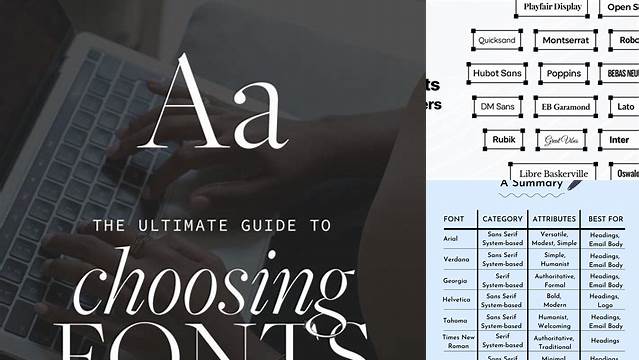
Best Web Fonts For Email: Ultimate Guide
Hey everyone! Let's dive into the best web fonts for email! Choosing the right fonts can seriously elevate your email design, making your messages more readable, engaging, and on-brand. But with so many options out there, how do you choose the perfect ones? Don't worry, I've got you covered. In this article, we'll explore some top-notch web fonts that are guaranteed to make your emails pop. We'll talk about why fonts matter, which ones work best, and how to implement them like a pro. Get ready to transform your email game! This is your go-to guide for selecting fonts that will make your emails not only look great but also perform better. So, are you ready to step up your email marketing? Let's get started.
Why Font Selection Matters in Email Marketing
Alright, guys, let's talk about the impact of font selection in email marketing. Seriously, it's a big deal. Think of your email as a virtual handshake – you want to make a good first impression, right? Fonts are a crucial part of that. The right font enhances readability, reinforces your brand identity, and grabs your audience's attention. The wrong font? Well, it can make your email look clunky, hard to read, and even unprofessional. And we definitely don't want that. When we talk about the best web fonts for email, we're talking about fonts that strike the right balance between aesthetics and functionality. Choosing the right typography helps you communicate your message effectively, which is ultimately what every email marketer strives for. You need to choose a font that complements your content and is easy to read on any device. Remember, a well-chosen font can significantly improve user experience, making your emails more enjoyable to read and increasing the likelihood that your audience will engage with your content. Plus, using the right font builds brand recognition, making your emails instantly recognizable and memorable. A good font helps build trust, which is a key factor in getting your audience to interact with your business.
Beyond just making your emails look pretty, fonts also play a huge role in readability. If your text is difficult to read, people will bounce. No one wants to squint or struggle through a block of text. So, when considering best web fonts for email, always prioritize readability, especially on mobile devices. And let's face it, most people check their emails on their phones. Choosing fonts that render well on different screen sizes and resolutions is essential. Another vital point is branding. Your font choice should align with your brand's overall aesthetic. If you have a playful brand, you might opt for a more whimsical font. For a more professional image, go for a clean, classic option. Consistency across all your marketing channels – including your emails – reinforces your brand identity and helps create a cohesive brand experience. Your email fonts are a tool that allows you to be uniquely you. It helps people to recognize you through that unique brand image. This helps build a better and stronger relationship with your readers. In short, font selection can make or break your email marketing efforts. A well-thought-out font strategy can boost engagement, improve your brand image, and ultimately drive conversions. The best web fonts for email are ones that boost your chances of a successful marketing campaign, so, let's get those numbers up!
Top Web Fonts to Consider for Your Email Campaigns
Okay, so what are some of the best web fonts for email? Let's look at a few of my favorites. There are so many options out there. I tried to make it simpler by providing some specific examples. We'll break down each one, focusing on their characteristics, and when to use them. This will help you find the perfect fit for your brand. Here are a few of my personal favs and they're often considered some of the best web fonts for email available. Remember, the key is to choose fonts that are legible and render well across all email clients and devices.
1. Arial
Starting with the basics, Arial is a classic. It's a sans-serif font, which means it doesn't have those little strokes at the ends of the letters. Arial is widely supported by email clients, making it a reliable choice, and it's a safe bet if you want to ensure your emails look consistent across different platforms. It's very readable, even at smaller sizes, so it's a great option if you want your emails to be accessible on all devices. It's very well known and has been widely used. While Arial might not be the most exciting choice, it's dependable. It is usually used as a default. It is a workhorse that gets the job done, and it's perfect for body text. This makes it ideal for long-form content that needs to be easy to read. Because of its simple design, Arial blends well with other fonts. This allows you to use it with other fonts to make your emails more appealing. Arial is universally recognized and understood, so it will likely work as expected for anyone on any device.
2. Helvetica
Next up, we have Helvetica. Similar to Arial, Helvetica is a sans-serif font with clean lines and high readability. It's another safe choice, as it's widely supported. Its minimalist design gives your emails a modern and clean look. Helvetica is known for its versatility, making it suitable for different types of content. If you are in doubt, you can't go wrong with Helvetica. It's an excellent choice for both headlines and body text, providing a consistent and polished look. It is also a popular choice among many other major brands. It is considered more of a premium option than Arial. Although, they are very similar to each other. Helvetica is ideal for brands that want to convey a sense of professionalism and simplicity. It is very easy to read on any device. Helvetica gives a very classic impression of the brand, which is very important to a lot of companies. This can help readers know more about your company's values.
3. Verdana
Moving on, we have Verdana. This is another excellent choice for email. Verdana is also a sans-serif font, but it's designed specifically for readability on screens. It has wider letterforms and a larger x-height. This means that the lowercase letters are taller, which makes it easier to read, especially at smaller sizes. This is particularly useful for emails that are viewed on mobile devices. Verdana is another font that is well-supported by email clients and ensures your message is clear and concise. It is perfect for body text. It is great to use when you want to ensure your emails are easy to read. Verdana's emphasis on readability makes it ideal for a wide range of content. It is a great choice if you want to ensure your emails are accessible to everyone, regardless of their device. It is known to be easier to read on smaller screens. So, if you value accessibility in your email campaigns, this is a must-consider font. It is also a very popular font, which will surely make your emails successful. It is also considered one of the best web fonts for email.
4. Georgia
Now, let's talk about Georgia. Unlike the fonts we have covered so far, Georgia is a serif font. This means it has small strokes, or serifs, at the ends of the letters. Serifs can enhance readability, especially in print. Georgia is specifically designed for screen readability, making it a great choice for email. It offers a more traditional and classic feel, which can be perfect for certain brands. Its slight serifs help guide the eye across the text, which enhances readability. It is a great choice for long-form content or newsletters, providing a comfortable reading experience. Georgia can add a touch of elegance and sophistication to your emails, making them look more polished and professional. If you're going for a classic, high-end look, Georgia is your go-to. It is a very respected font, which makes it one of the best web fonts for email. Georgia is highly readable and can make your content look very sophisticated.
5. Times New Roman
Here's another classic: Times New Roman. This is another serif font, known for its traditional appearance. While it's widely recognized, its use in email is sometimes debated. While it's perfectly readable, some might consider it a bit overused or even boring. However, Times New Roman remains a reliable choice, particularly if you want a professional, conservative look. It works well for body text. It is ideal for content that needs to look official. It is supported by nearly all email clients. If you're using this font, make sure your design is on point to avoid appearing dated. It is a safe choice for any campaign. If you use it properly, Times New Roman is another of the best web fonts for email. Make sure you are creating a unique brand style to prevent your email from looking generic.
Implementing Web Fonts in Your Emails
Alright, let's get down to the nitty-gritty: implementing web fonts in your emails. This is where you bring those font choices to life. Here's how to do it the right way. When it comes to best web fonts for email, the implementation is where the rubber meets the road. It's not as simple as picking a font and calling it a day, but with a little know-how, you'll be able to make your emails look fantastic. Let's get into the technical stuff and make sure that those best web fonts for email render correctly every time.
Choosing the best web fonts for email is all about finding the right balance between aesthetics, readability, and brand consistency. By carefully selecting fonts, implementing them correctly, and following best practices, you can create emails that not only look great but also engage your audience and drive results. Always prioritize readability, align your fonts with your brand, and test your emails to ensure they look perfect on any device. With the right fonts, you can elevate your email design, making your messages more impactful and memorable. So go out there, experiment with the best web fonts for email, and start creating emails that will make your audience say, "Wow!". Happy emailing, everyone!